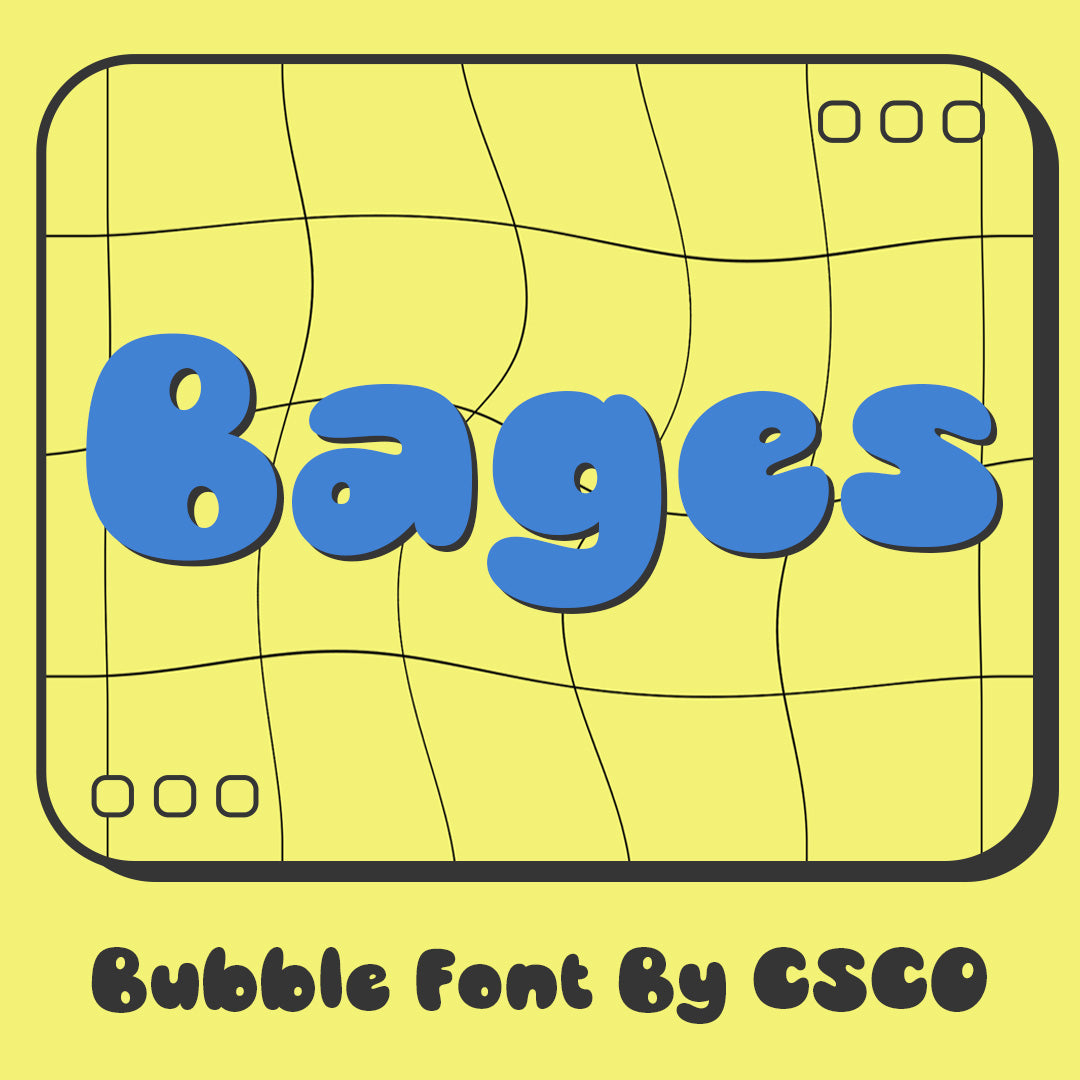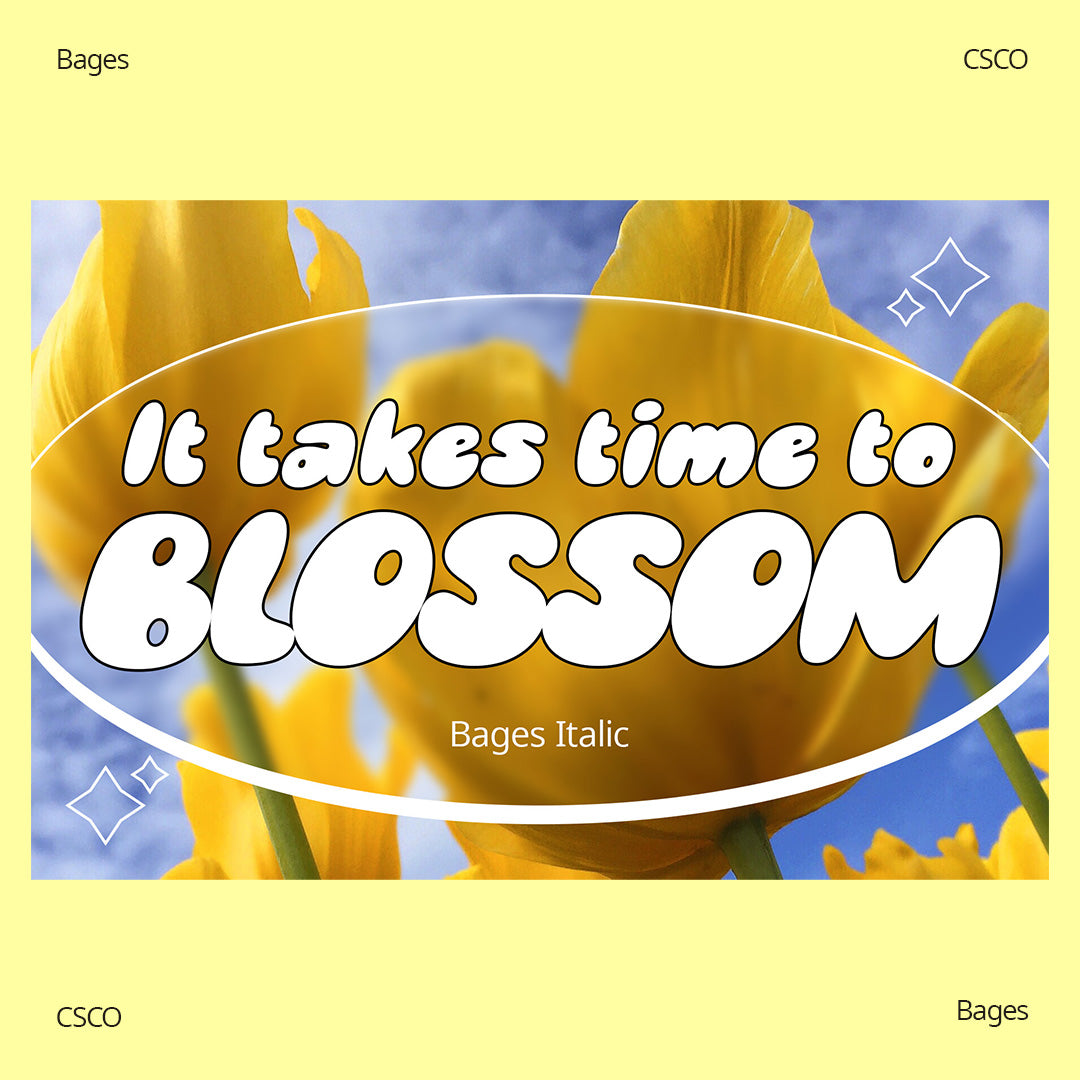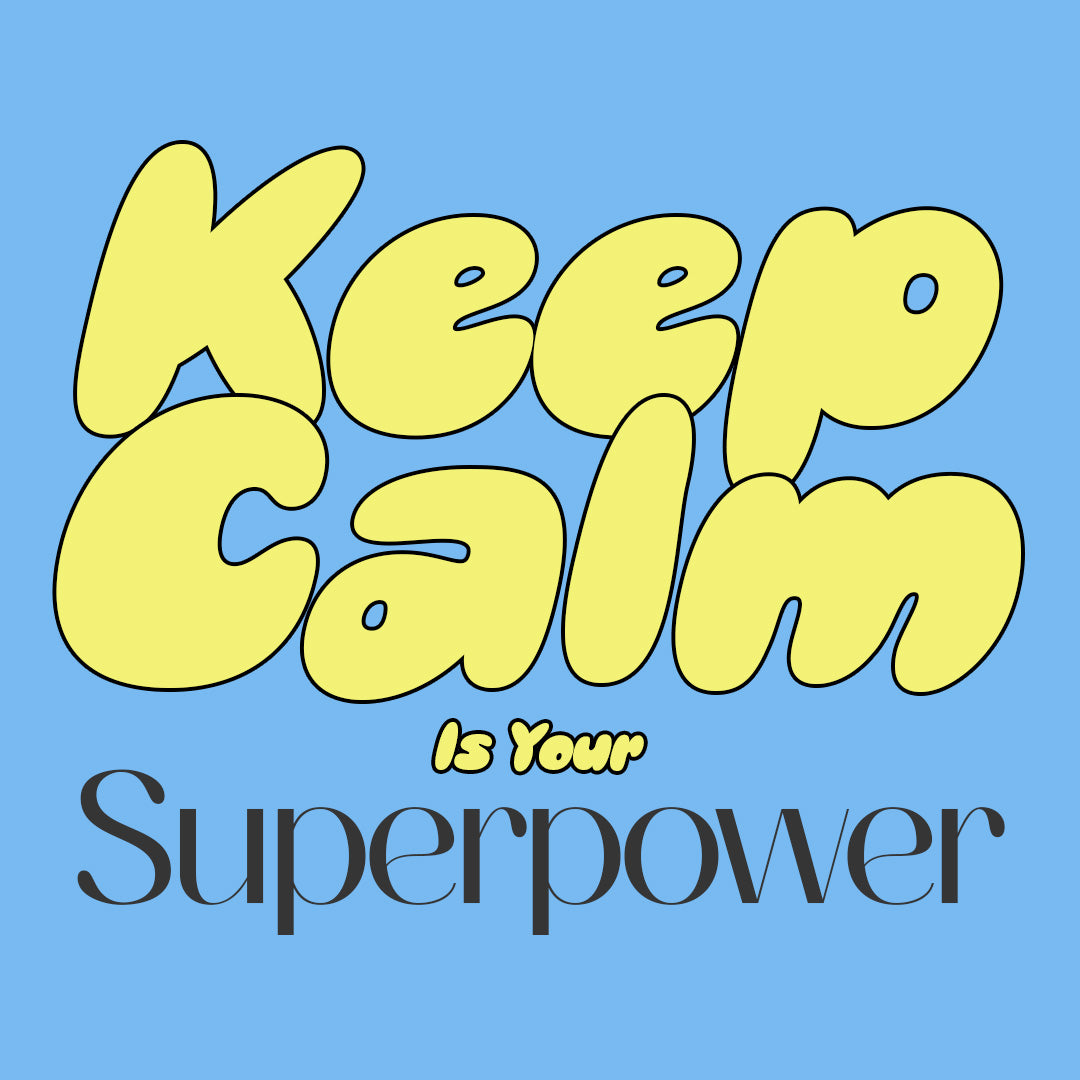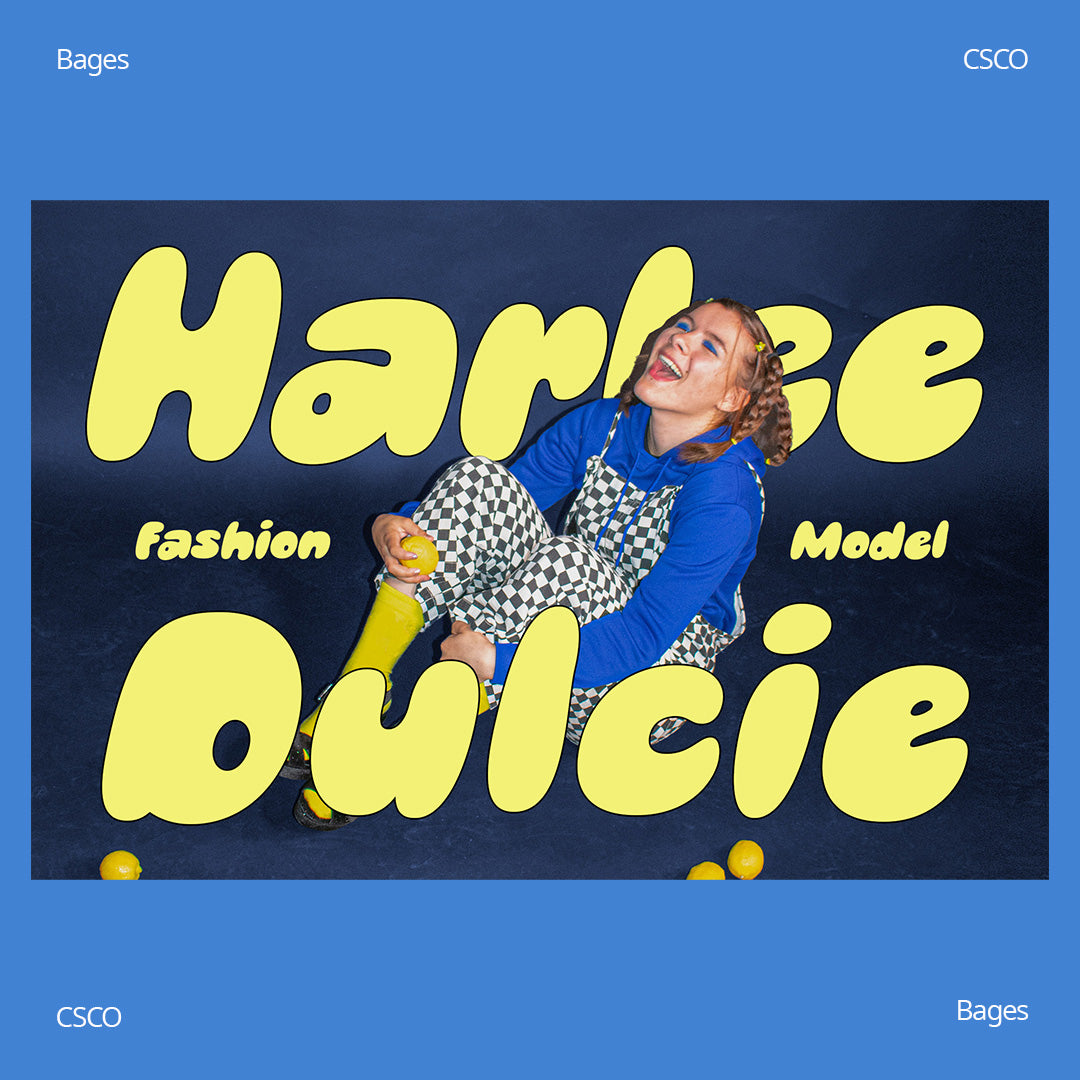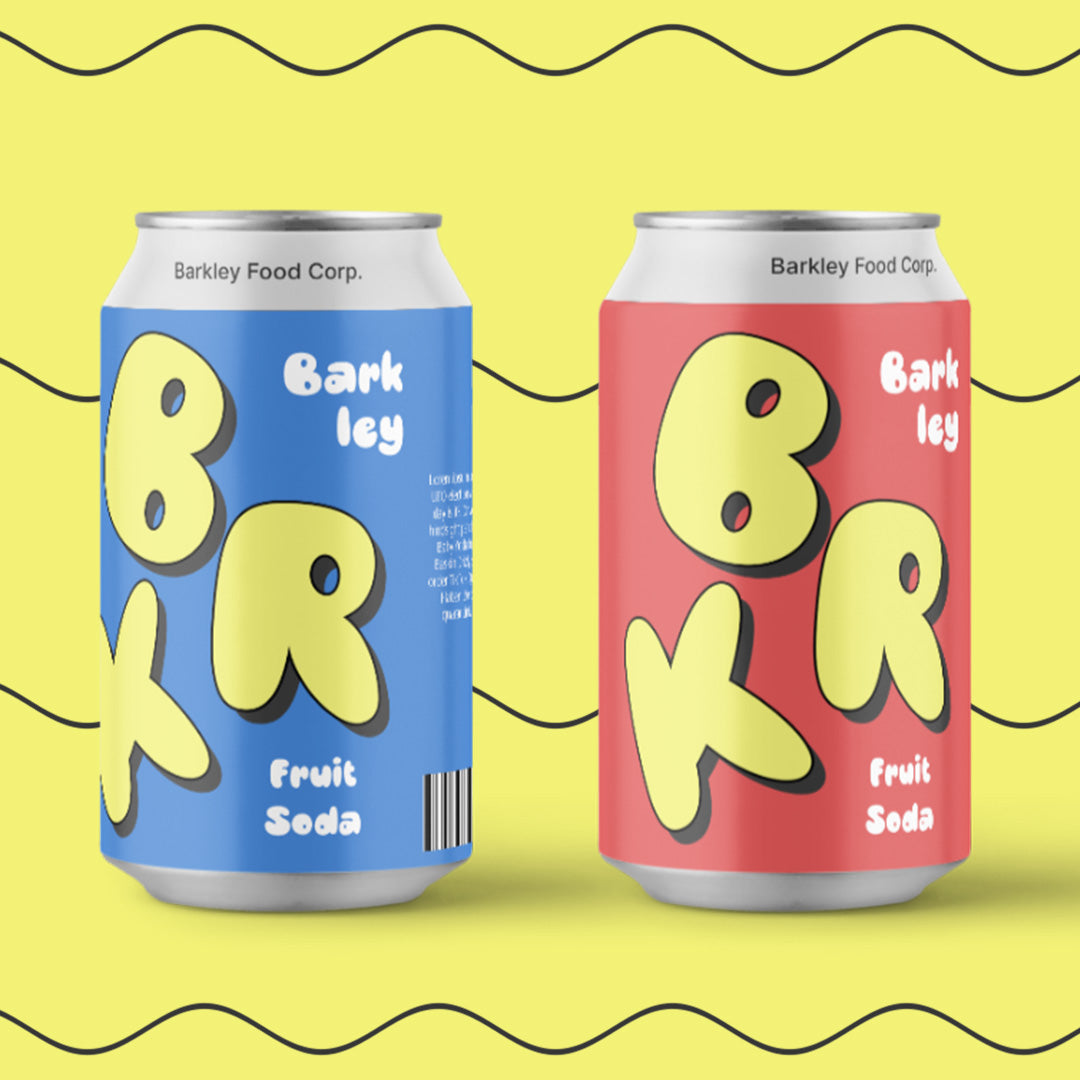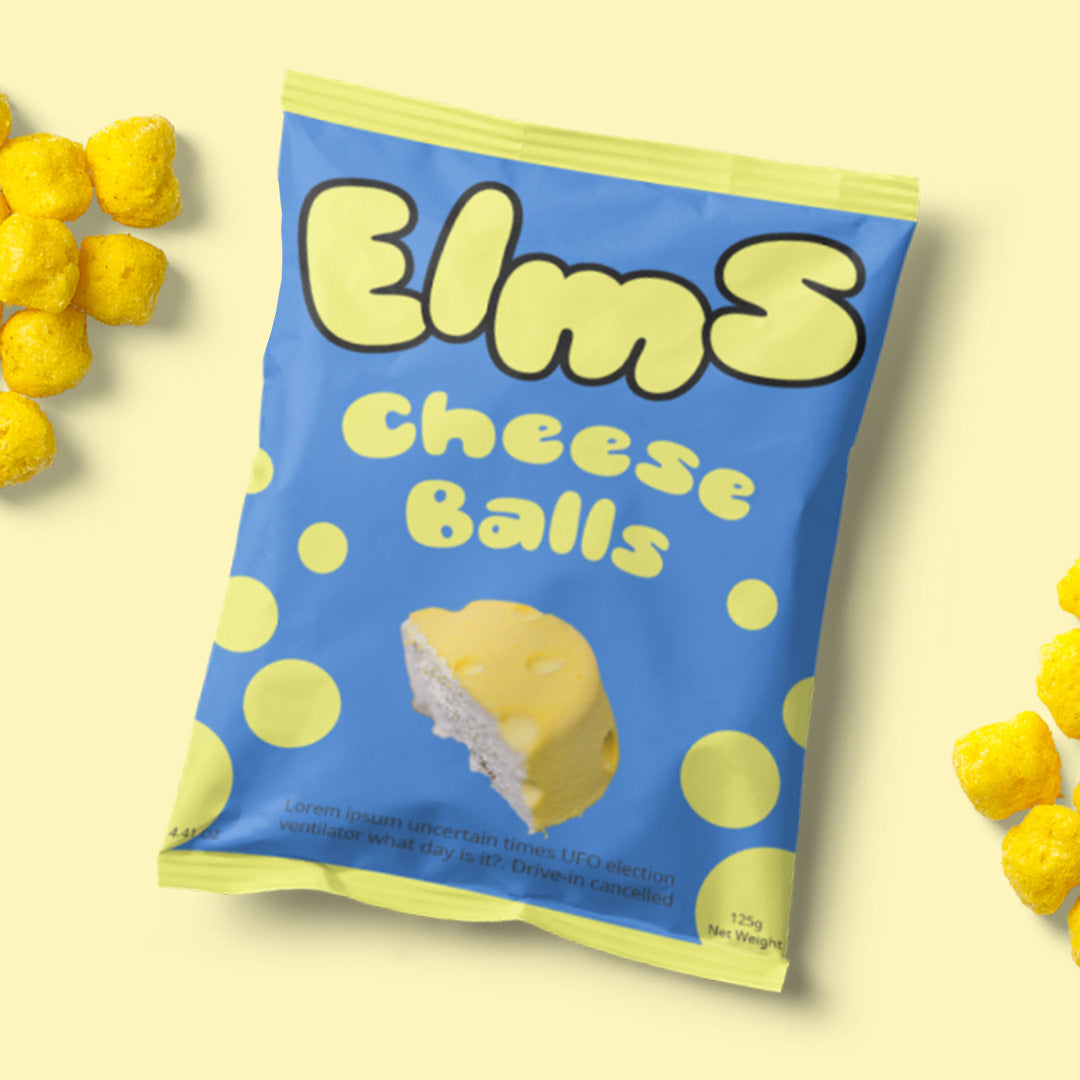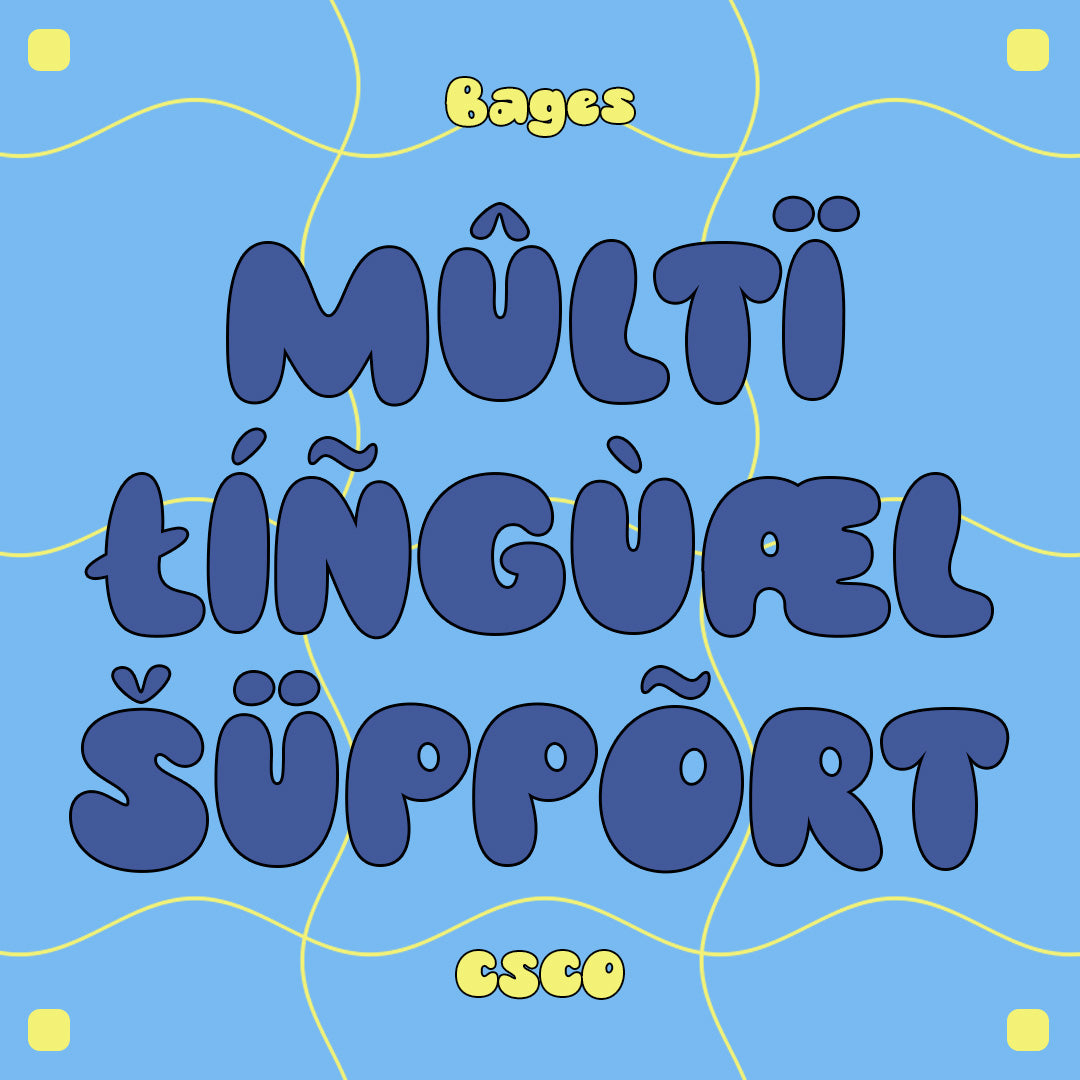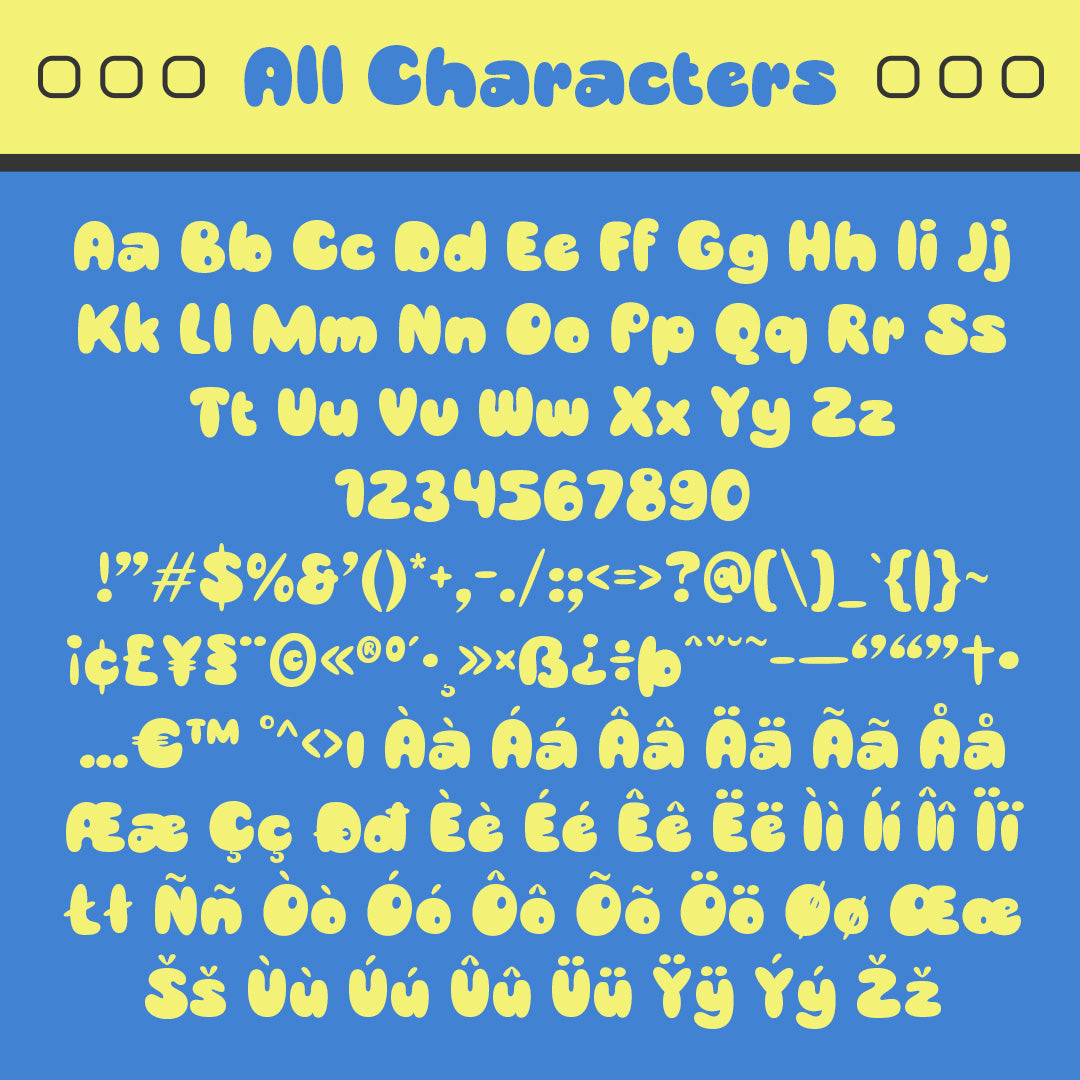
Bages – Bubble Font
Introduction to Bages – Bubble Font
Bages – Bubble Font is a dynamic and cheerful display font, inspired by the playful shapes of bubbles and balloons. Ideal for catchy displays, this font captures attention instantly, making it perfect for creative and fun-filled projects.
Design Features
Every character in Bages – Bubble Font mimics the round, buoyant nature of bubbles. The design incorporates smooth, rounded edges, giving a floating effect akin to balloons. This unique style brings a joyful and lively flair to any design, ensuring it stands out with its playful aesthetics.
Versatile Applications
This font’s versatility is noteworthy, suitable for a variety of design purposes. It’s excellent for party invitations, children’s books, and marketing materials, adding a fun twist to traditional text. Moreover, its engaging style is ideal for educational content, making learning more appealing to young audiences.
User-Friendly and Appealing
Bages – Bubble Font is crafted to be user-friendly and accessible to diverse audiences. Its simple and clear design makes it easy to read, appealing to both children and adults alike. In summary, this font is a delightful addition to any designer’s toolkit, infusing projects with joy and playfulness.
Bages – Bubble Font is a display font featuring rounded, buoyant characters inspired by bubbles and balloons. It includes uppercase and lowercase letters, numerals, punctuation, and supports multilingual characters, making it a versatile choice for various design projects.